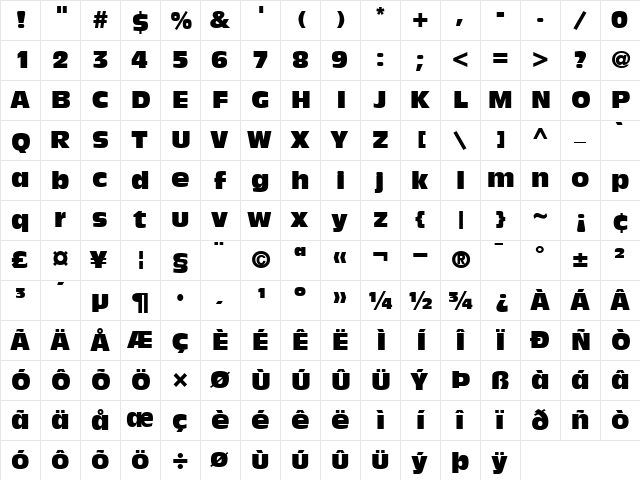
AntiqueOlivecompact Regular
Design Context for AntiqueOlivecompact Typeface
AntiqueOlivecompact has the warm character of retro typography — evoking diners, record sleeves, and the golden age of print advertising.
Font Pairing: Combine AntiqueOlivecompact with a simple slab or neutral sans — period-accurate companions reinforce the vintage feel without competing for attention.
Pro Tip: Lean into AntiqueOlivecompact's period character by pairing it with aged paper textures, muted colour palettes, and vintage illustration styles.